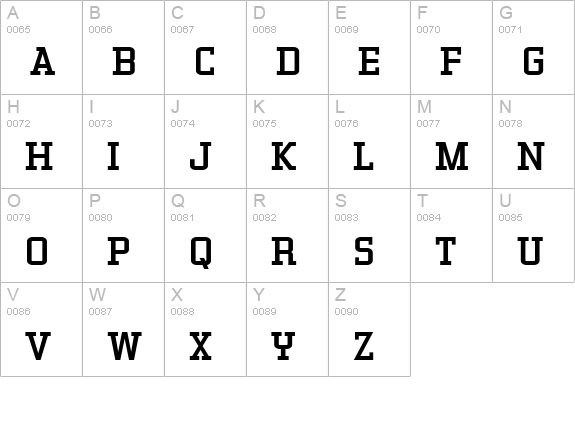
Gasoline Serif BTN is a modern and stylish font that exudes a timeless elegance. With its sleek lines and sophisticated design, this font is perfect for creating eye-catching designs that stand out. Whether you're working on a branding project, designing a poster, or creating a stunning logo, Gasoline Serif BTN is sure to make a statement. The best part is, Gasoline Serif BTN is completely free to download at FontsMarket.com! This means you can add this beautiful font to your collection without any cost. Don't miss out on the opportunity to enhance your designs with this versatile and elegant typeface. Download Gasoline Serif BTN today and take your projects to the next level.